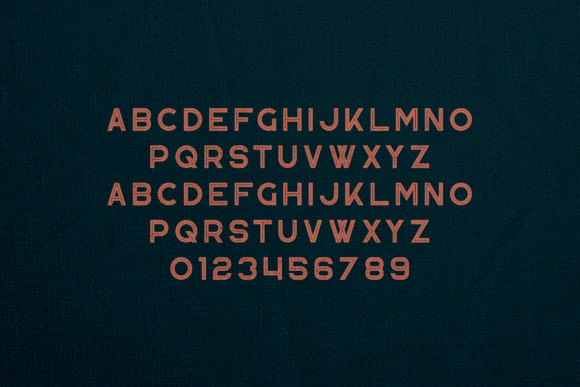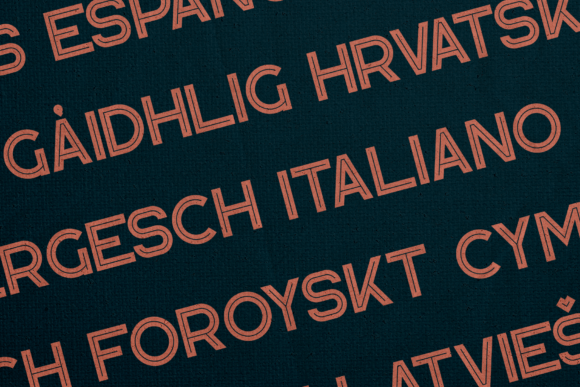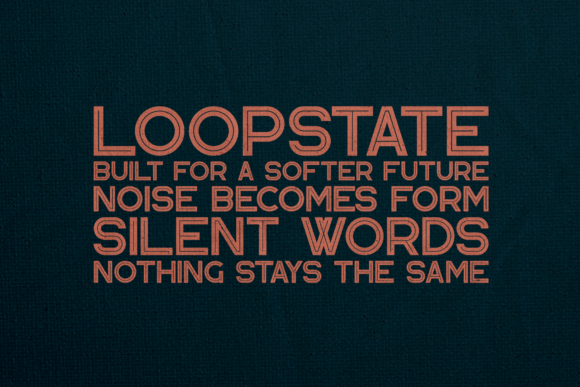
Introduction to Kavo Inline Font
As a designer, have you ever stared at a blank canvas, eager to bring your creative vision to life? The thrill of a new project can be exhilarating, but it’s often the perfect font that makes all the difference. Enter the Kavo Inline Font, a modern geometric sans serif that’s poised to elevate your designs to the next level.
With its clean construction, rounded corners, and precise double-line inline structure, the Kavo Inline Font is a game-changer for designers seeking a high-quality design resource. Whether you’re working on a creative project that requires a bold headline or a subtle touch, this font delivers a futuristic yet minimal aesthetic that’s confident, structured, and refined. Plus, its balanced proportions and technical outline style make it perfect for a wide range of applications, from logos and posters to editorial layouts and digital branding.
Key Features of Kavo Inline Font
- High-quality design for creative projects, ideal for use as a design resource
- Unique inline style with a transparent background, allowing for versatility in design
- Designed with high resolution, making it suitable for use in large-scale designs
- Unique characteristics include a modern aesthetic and a wide range of applications, from digital to print media
Honest Review: Kavo Inline Font
As a designer, I’m always on the lookout for high-quality design resources to elevate my creative projects. The Kavo Inline Font is a great addition to any design toolkit.
What works well is the font’s clean and modern design, making it perfect for projects that require a touch of sophistication. ✨ The transparent background option is also a huge plus, allowing for seamless integration into any design.
- High-quality, modern design
However, there are some limitations to consider. ⚠️ The font may not be suitable for projects that require a bold or dramatic effect, as it can come across as a bit understated. Additionally, the font’s versatility is somewhat limited, making it less adaptable to different design styles.
Overall, I’m impressed with the Kavo Inline Font and would definitely recommend it to designers looking for a high-quality, modern font for their creative projects.
Tips for Getting the Most Out of Kavo Inline Font
Use the font in combination with other design elements, such as images or shapes, to create a unique and eye-catching design. Experiment with different font sizes and colors to achieve the desired effect. The font’s high-quality design makes it perfect for professional projects.
The Kavo Inline Font is perfect for a variety of creative projects, including graphic design, digital art, and web design. Its transparent background makes it easy to combine with other design elements, making it a versatile design resource for any project.